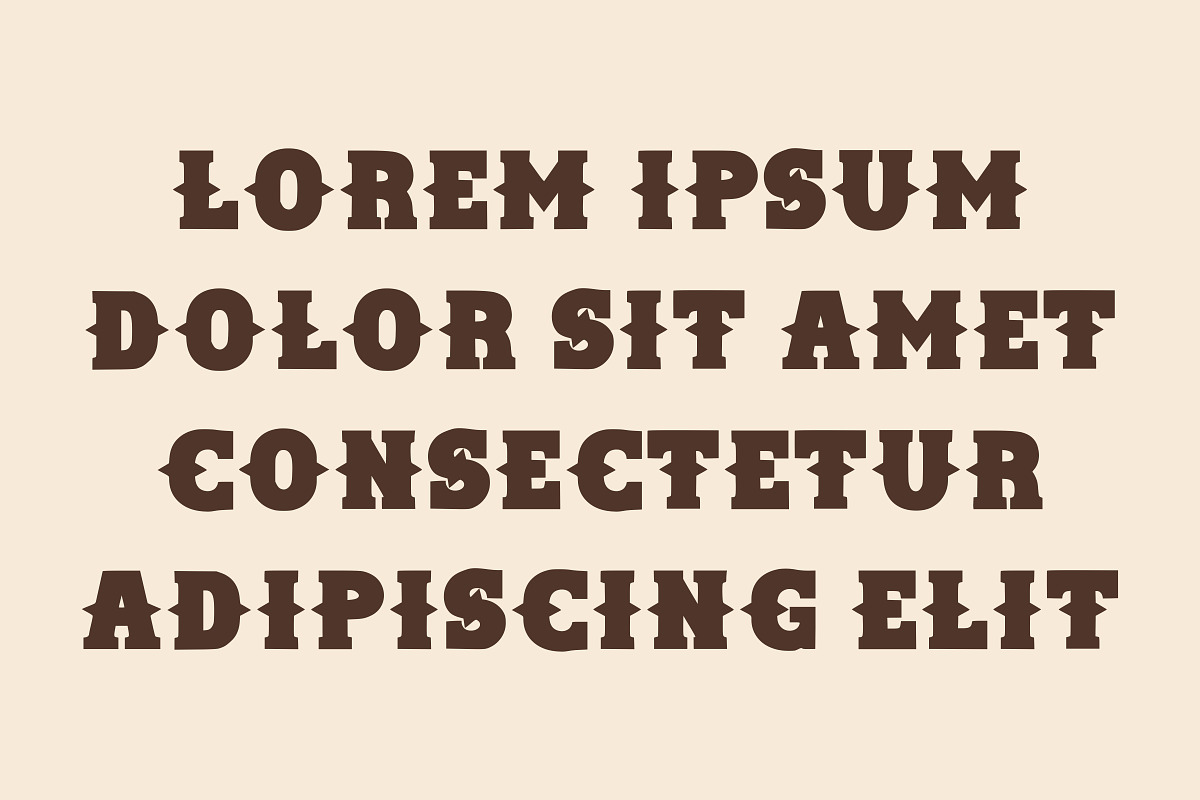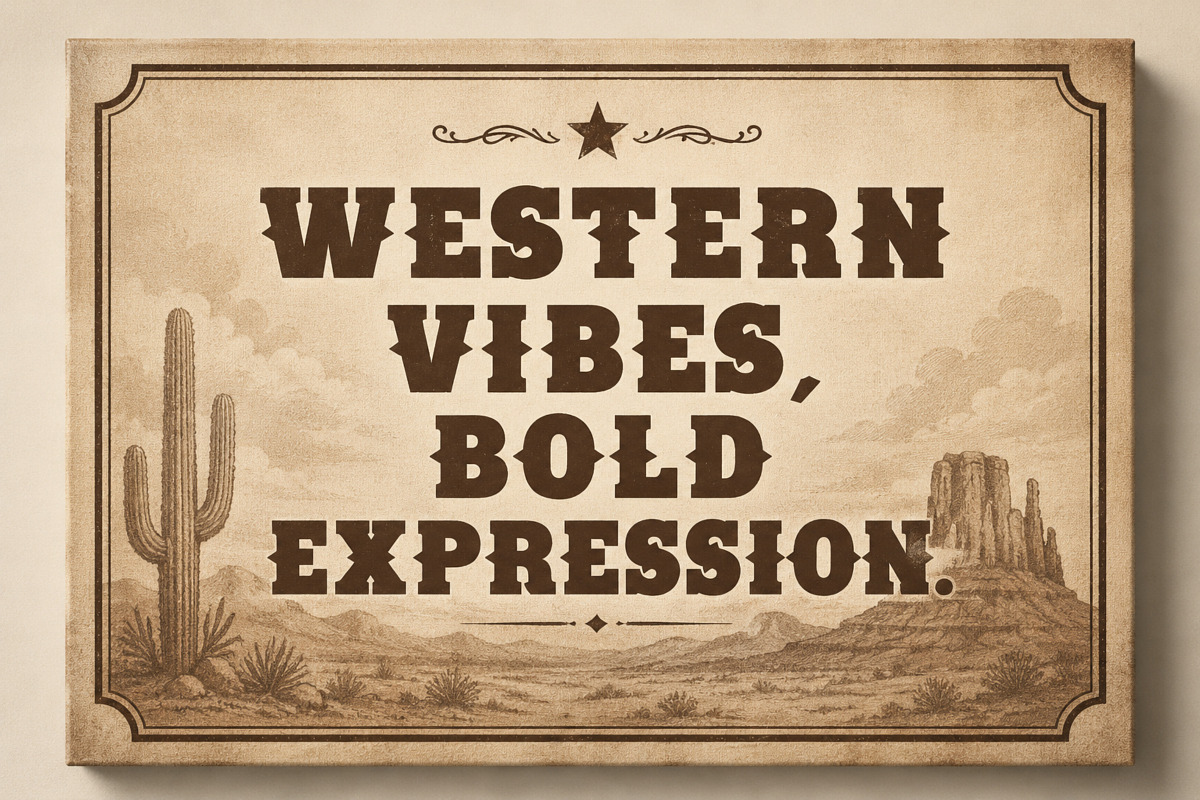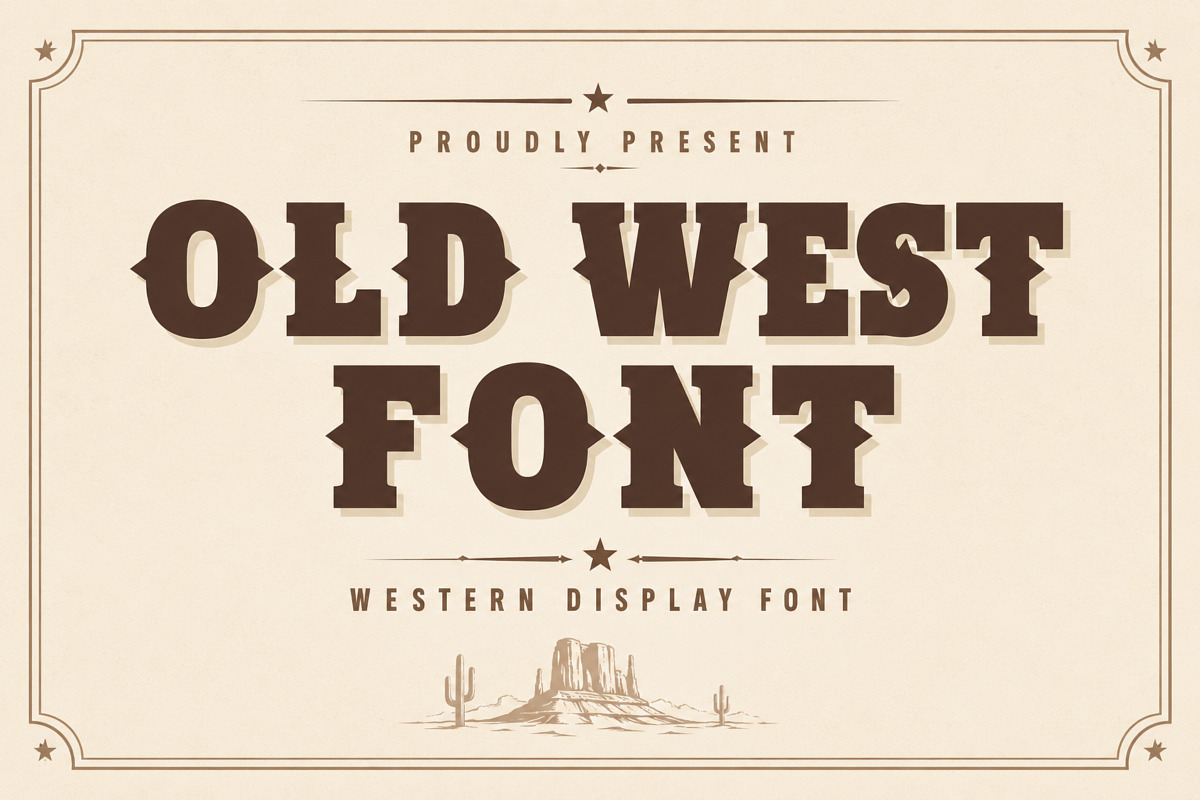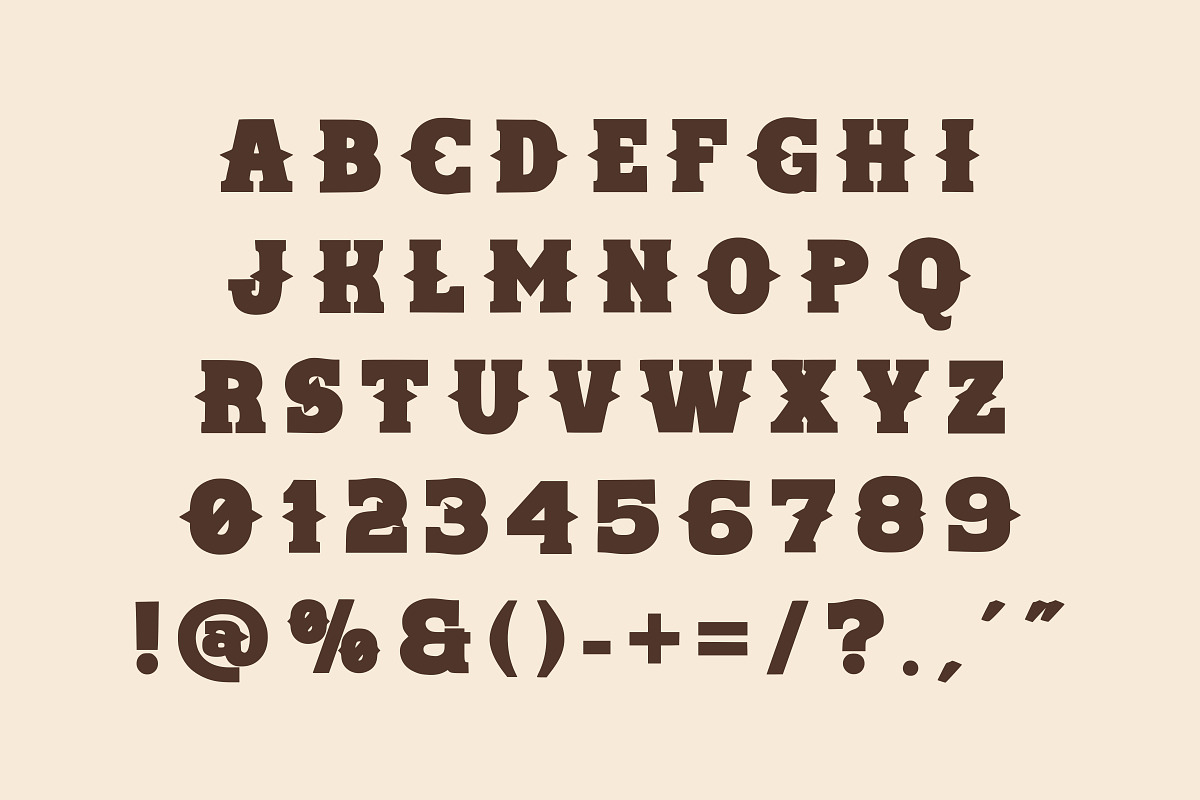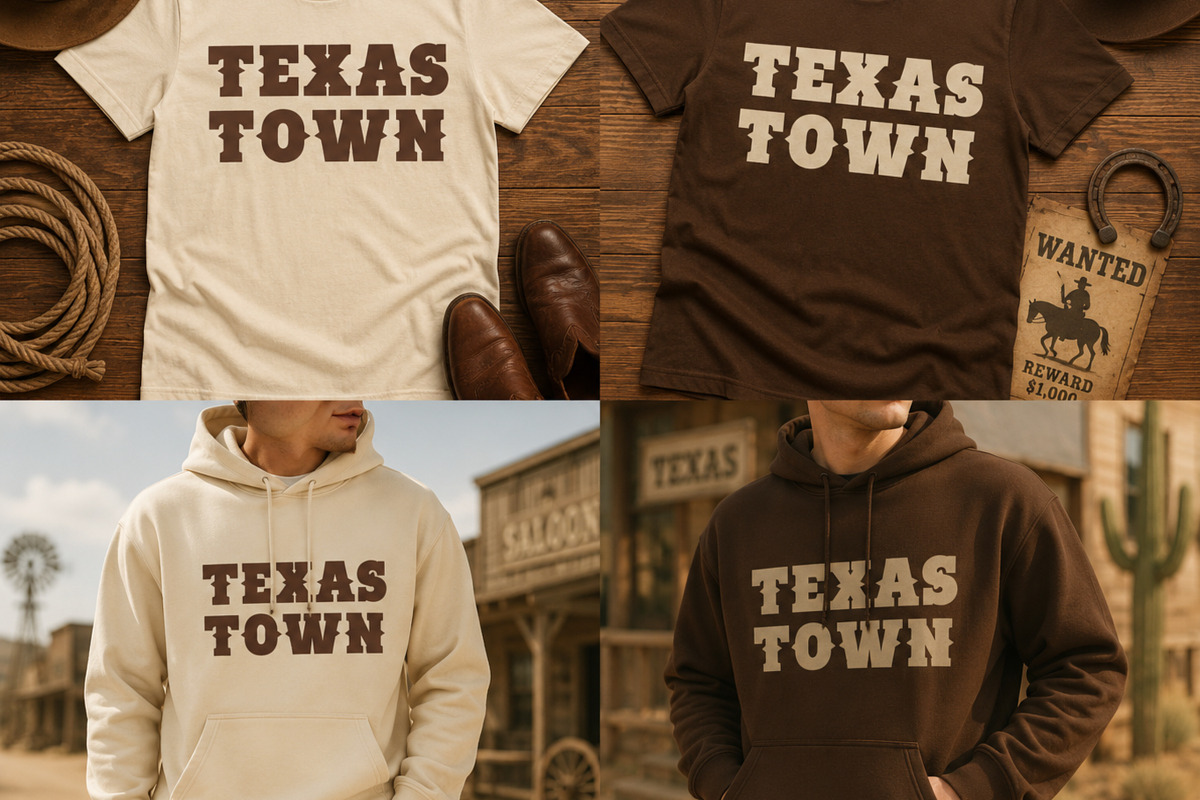
Old West Font – Vintage Western
Old West Font is a bold and distinctive western display typeface featuring strong slab-serif letterforms and an authentic vintage character. Its rugged appearance makes it perfect for creating eye-catching designs with a classic Wild West atmosphere.
Perfect for western posters, cowboy branding, rodeo designs, saloon signs, country music artwork, ranch logos, T-shirt designs, badges, labels, packaging, signage, invitations, and vintage advertisements.
Its bold shapes work especially well for headlines, titles, logos, and other designs that need a strong retro western personality.